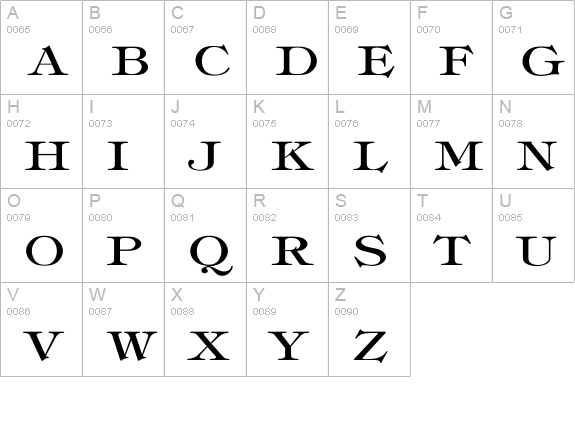
Tiffany-Normal Wd Font Details
Tiffany-Normal Wd is the standard, neutral variant in the Tiffany typeface family \xE2\x80\x94 well suited to general body text, paragraphs, and standard typographic work.
Introducing Tiffany-Normal Wd font, a stunning typeface that exudes elegance and sophistication. With its sleek and modern design, this font is perfect for adding a touch of refinement to any project. Tiffany-Normal Wd font features a harmonious balance between thin and bold strokes, creating a captivating visual rhythm that is pleasing to the eye. Its clean and crisp lines make it highly versatile, suitable for a wide range of design applications such as branding, logos, headlines, and more. One of the most appealing aspects of Tiffany-Normal Wd font is that it is available for free. Yes, you heard that right! This exquisite font can be freely downloaded at FontsMarket.com, making it accessible to anyone who wishes to enhance their designs with a touch of class. Whether you are a professional designer or an aspiring creative, Tiffany-Normal Wd font offers endless possibilities to elevate your projects. Its timeless aesthetics and versatility make it an indispensable tool in your font collection. Don't miss the opportunity to add Tiffany-Normal Wd font to your repertoire. Download it for free today at FontsMarket.com and unlock a world of endless design possibilities.